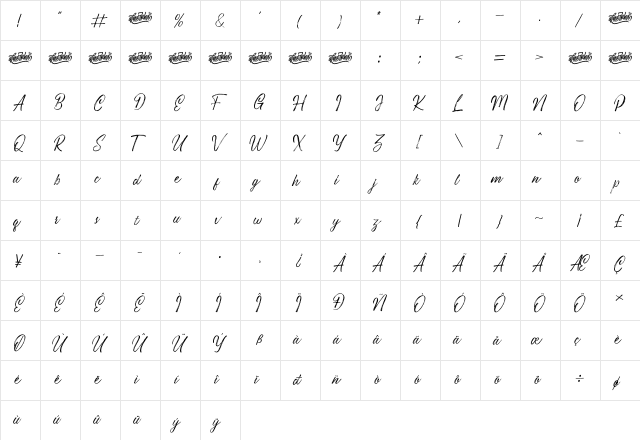
Costiera Regular
| Designer | Almarkhatype 2020 - Abdul Malik |
Design Context for Costiera Typeface
Costiera is a composed and adaptable typeface that performs quietly and consistently across a wide range of design contexts.